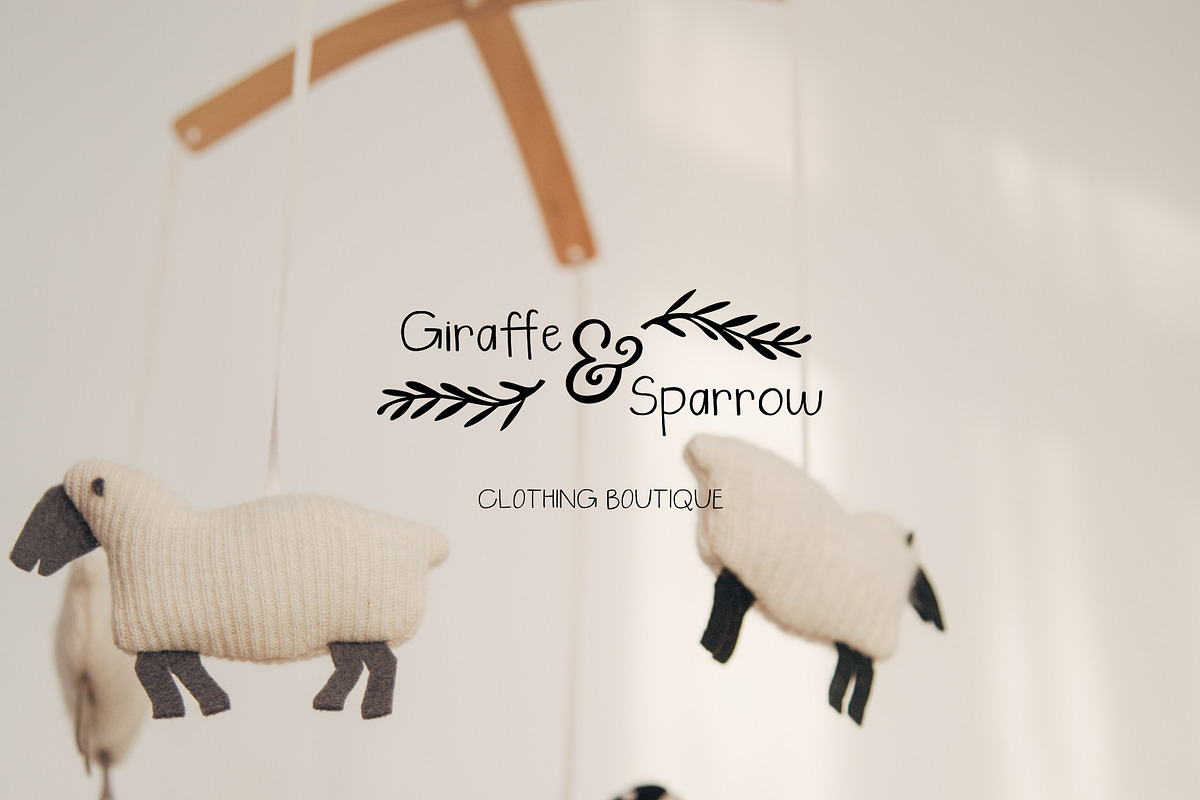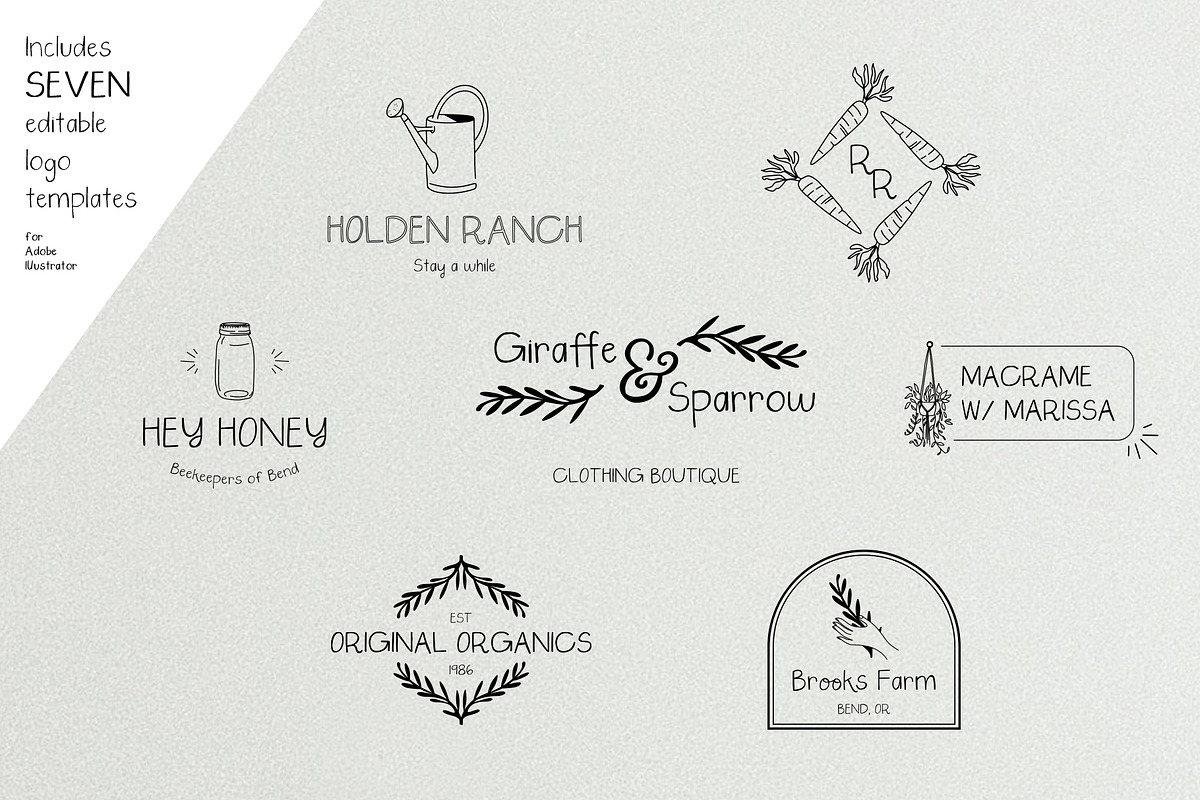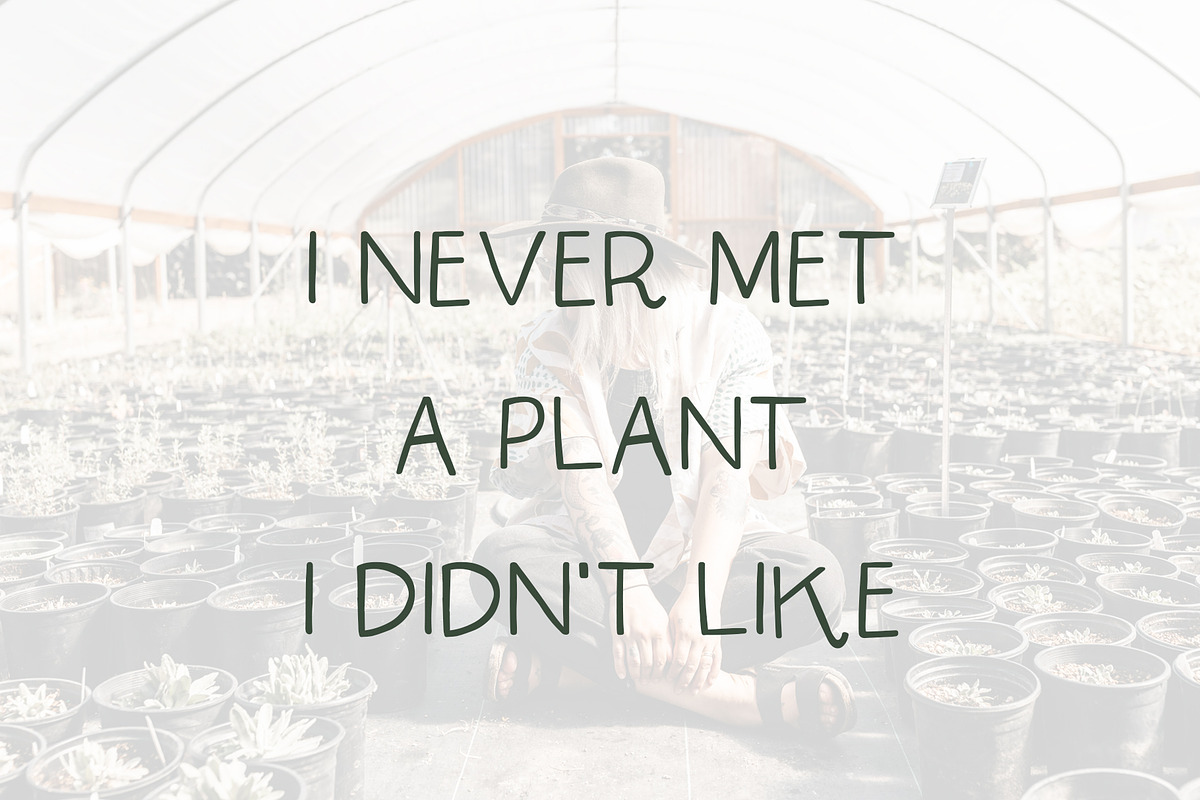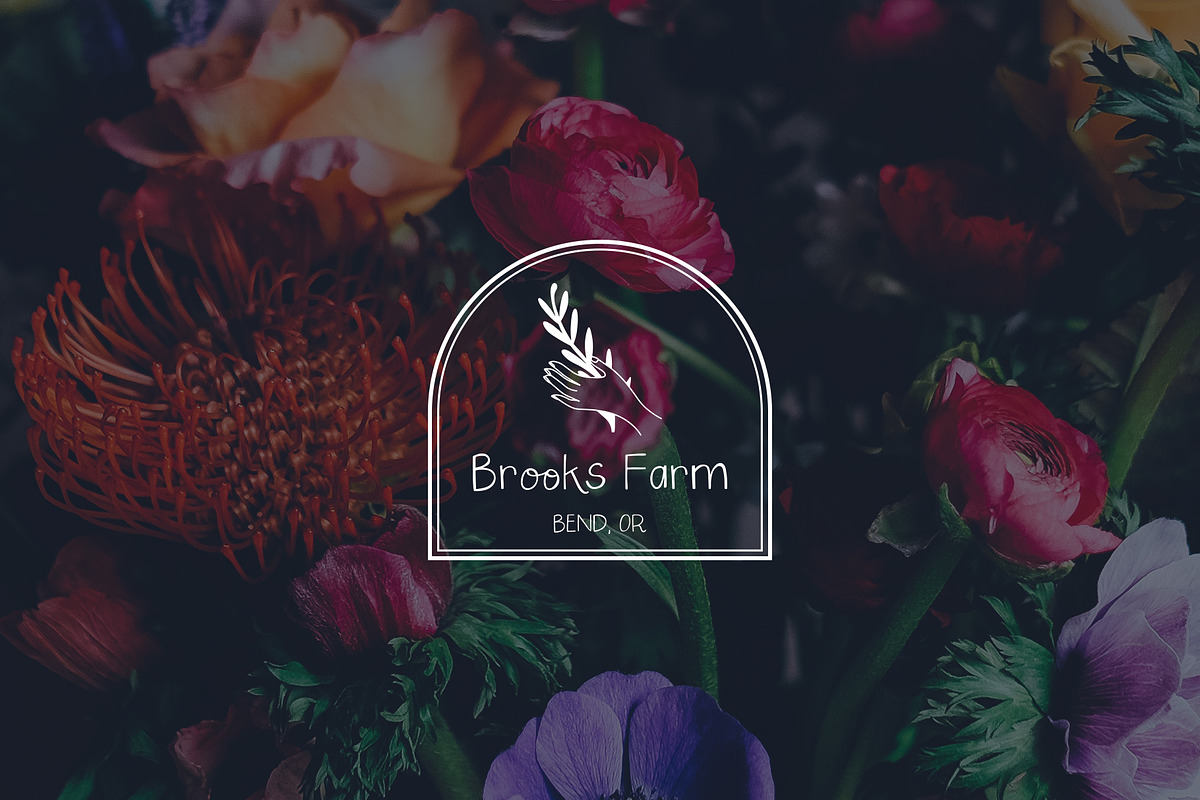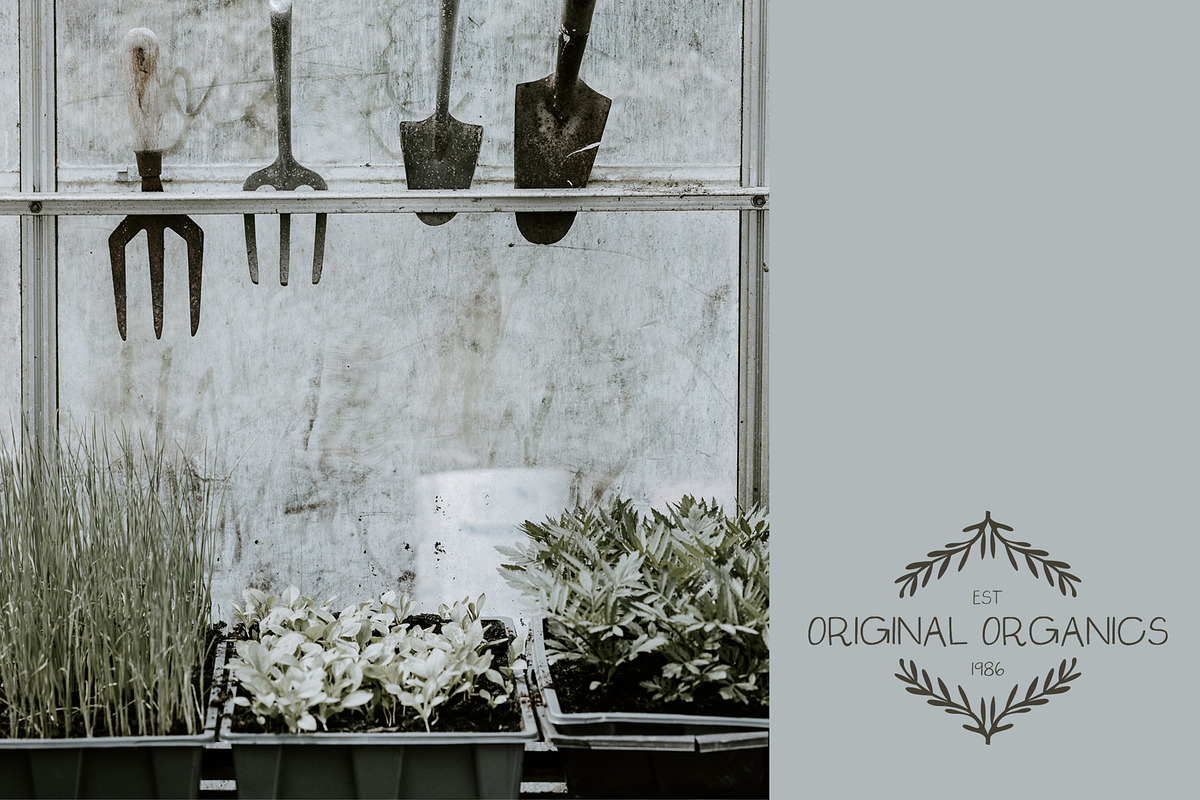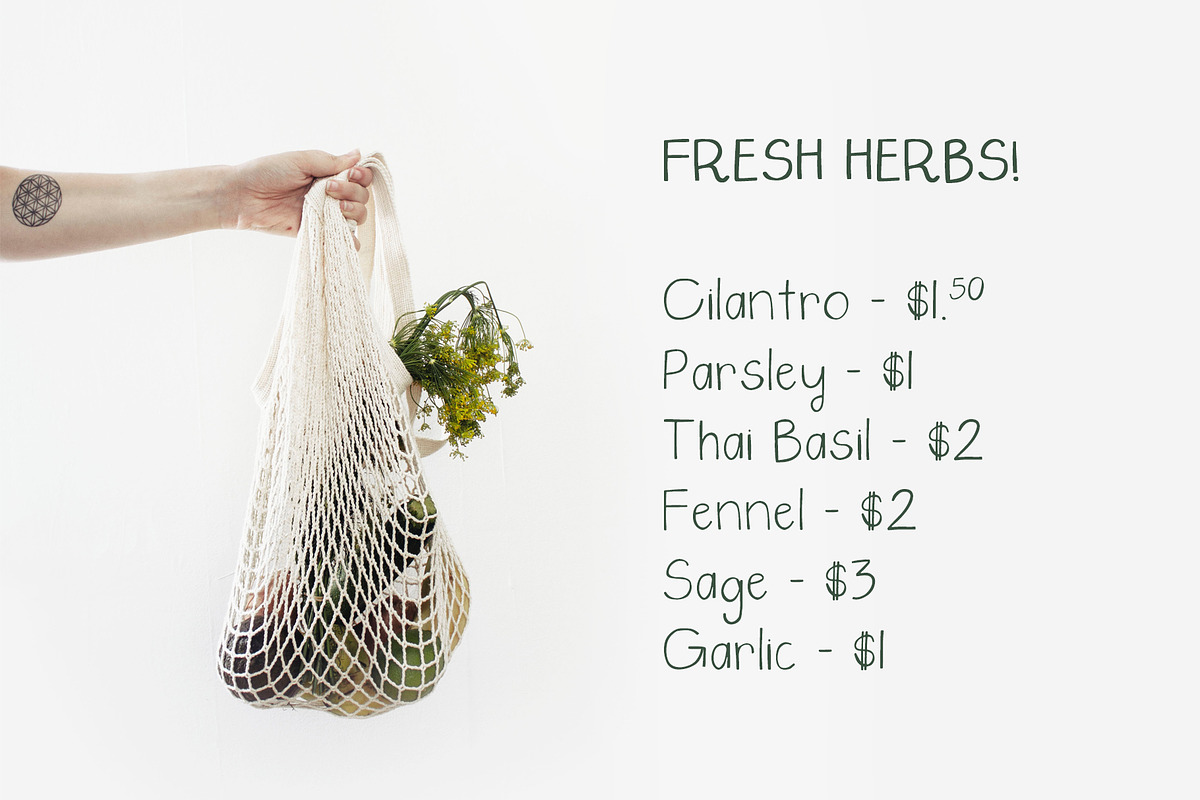
Saturday Market Font + Free Logos
Looking for a unique and bold statement font? Look no further than Saturday Market, a cute and casual typeface that includes Uppercase, Lowercase, Numbers, and Punctuation as well as a collection of extra ligatures to create a more dynamic look. Works both large and small, all caps or sentence case -- this font will add a fun personality to any design.
You also get 7 logo templates + illustrations to go along with this font to create awesome branding with a fun style!